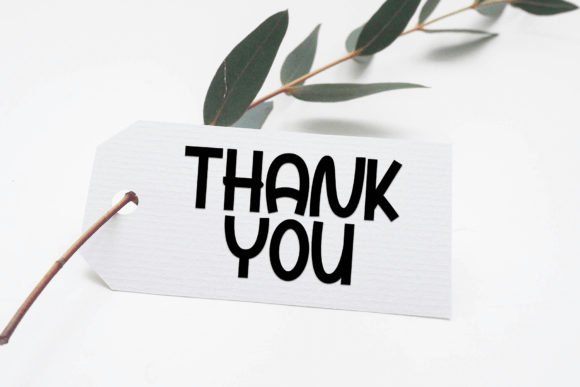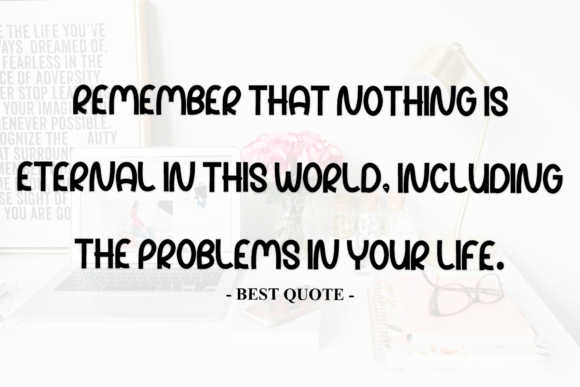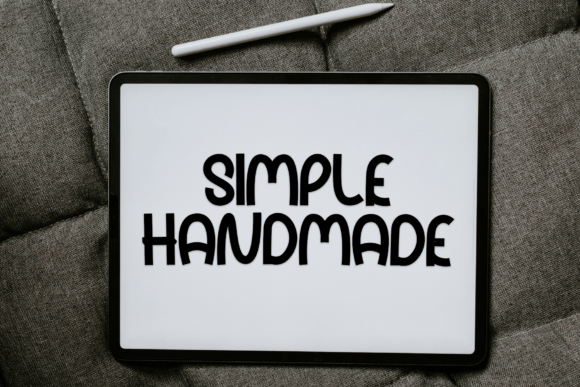
Introduction to Simple Money Font
Simple Money is a charming handwritten font with a warm, festive feel.
It features flowing letters that bring a personal touch to holiday messages, making everything look cozy and inviting Perfect for cards, decorations, and seasonal greetings.
Key Features of Simple Money Font
Why Choose Simple Money Font?